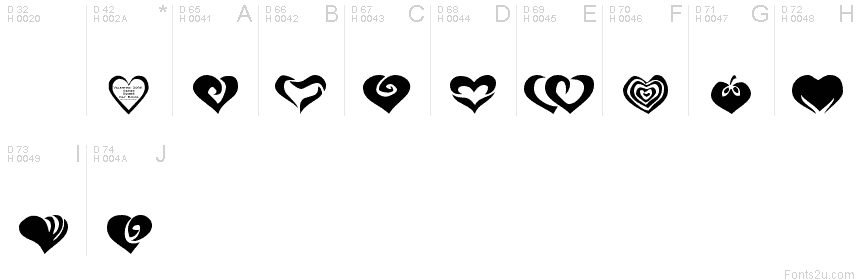
KR Valentines 2006 Two
KR Valentines 2006 Two by Kat Rakos is a free Valentine dingbat font centered on heart-led romantic symbols rather than neutral ornaments. The set reads like a themed packet of love notes, with soft celebratory motifs that keep the collection cohesive and clearly tied to cards, crushes, and holiday messaging.
It makes sense on Valentine's Day cards, candy tags, scrapbook pages, classroom handouts, and party invitations where small decorative icons can do more than plain bullets or dividers. Because the symbols come from one narrow theme, KR Valentines 2006 Two can also frame coupons, gift labels, and social graphics without the mixed-message look of a general holiday dingbat set.